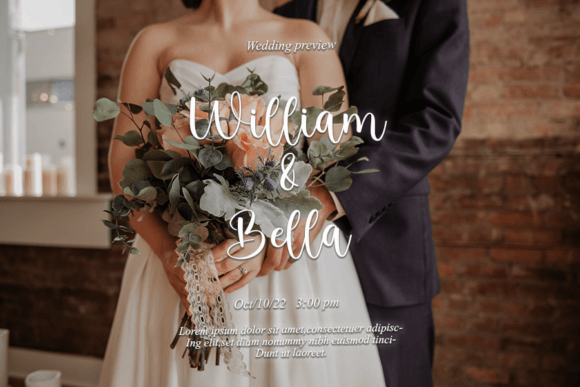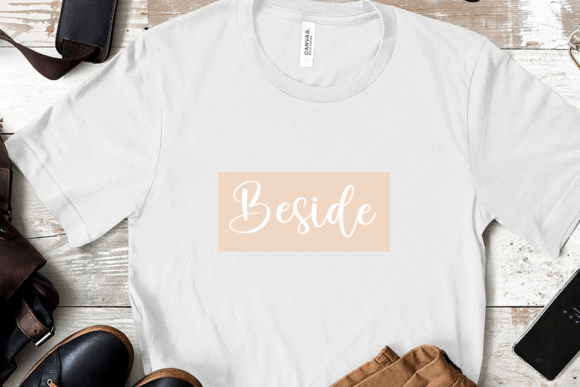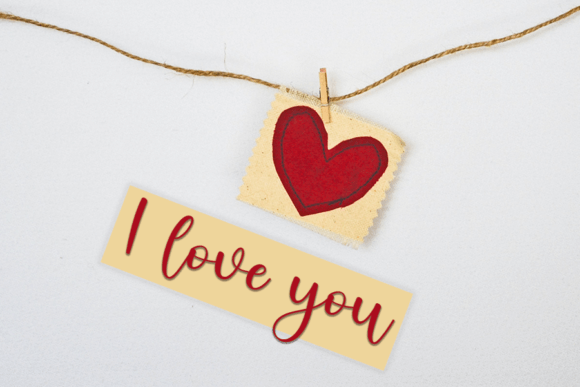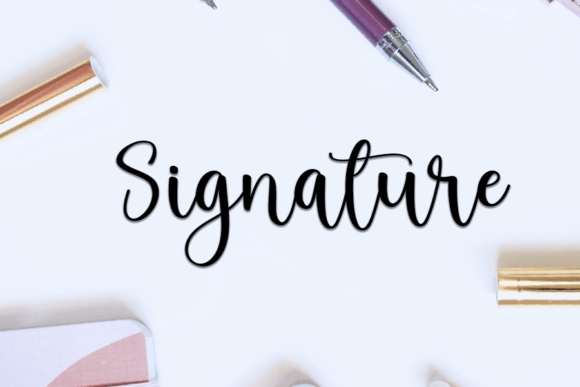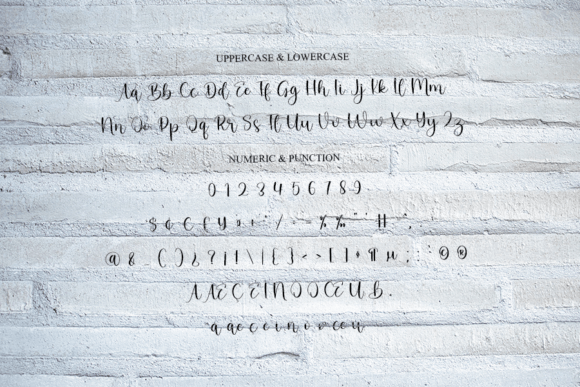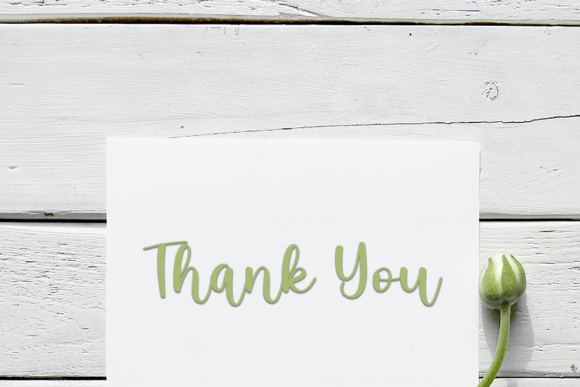
Beside Font
Beside: A Delicate Handwritten Font for Elegant and Personal Designs
If you’re searching for a delicate handwritten font that brings charm and originality to your creative projects, Beside is the perfect match. Crafted with precision and care, this font features soft strokes and graceful curves, making it an excellent choice for designers who value elegance and personality.
Beside brings warmth and authenticity to every word, making your designs stand out with a human touch.
Elegant by Nature, Versatile by Design
Beside’s minimalist and flowing style allows it to work across a wide range of applications. Whether you’re creating professional branding or heartfelt personal notes, this typeface offers a perfect blend of style and functionality.
Here are some ideal use cases:
• Wedding invitations and romantic greeting cards
• Product packaging for handmade or organic items
• Boutique logos and business branding
• Food and beverage labels
• Social media graphics and Pinterest pins
• Letterheads, flyers, and personal journals
Its natural feel and polished form allow you to keep things personal without sacrificing clarity or professionalism.
Why Choose Beside?
Great design starts with the right font. Beside has been designed not just to look good—but to work well across different mediums and platforms. That’s why it includes all the features you’d expect from a top-quality delicate handwritten font.
Key features include:
• Beautiful letterforms with smooth ligatures
• Well-balanced uppercase and lowercase characters
• PUA encoded – giving you access to all stylistic glyphs and alternates easily
These features make Beside not only visually appealing but also highly functional for daily design use.
Add a Gentle Spark to Your Typography
Fonts do more than carry information—they set the mood. Beside delivers just the right combination of gentleness and style. It brings a sense of closeness and elegance, perfect for making any project feel special.
Pair Beside with:
• Clean sans-serif fonts for contrast
• Soft pastel colors or watercolor backgrounds
• Minimalist layouts for a modern finish
Whether you’re building a brand, sending heartfelt invitations, or labeling homemade products, Beside is the delicate handwritten font that will make your words feel more personal and stylish.